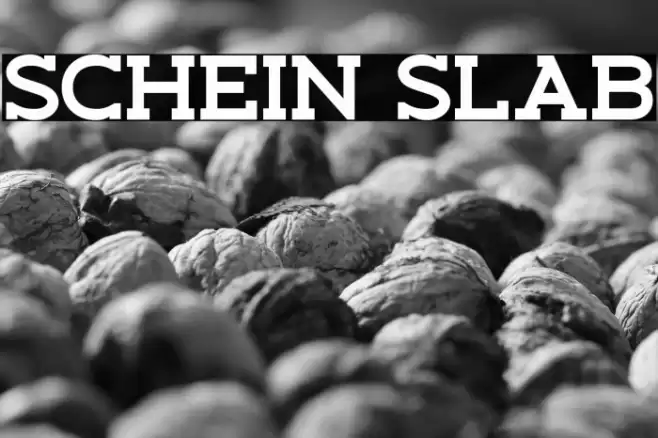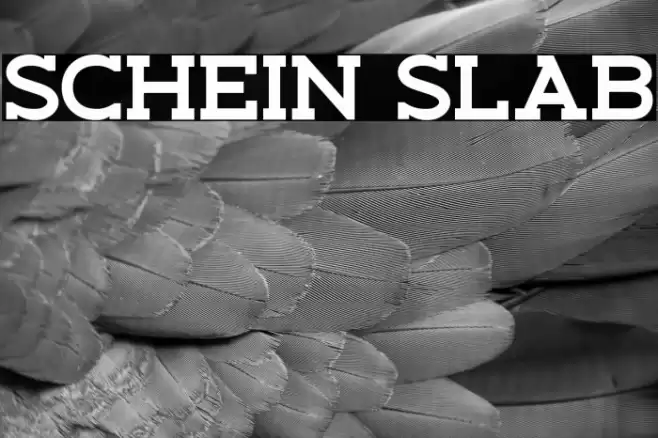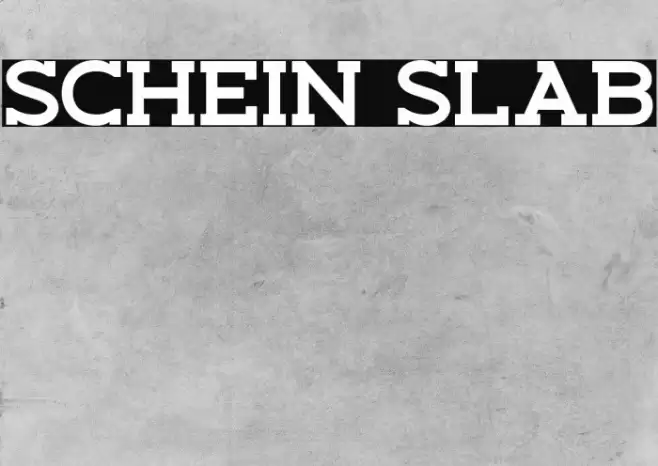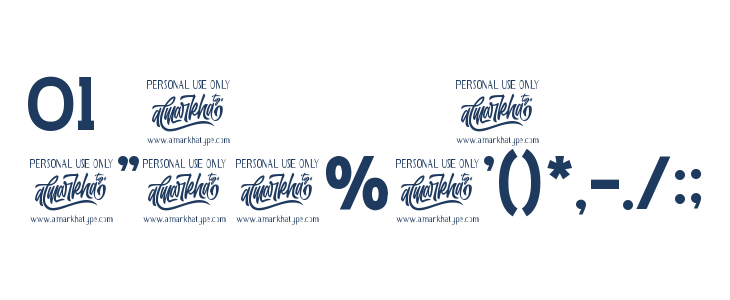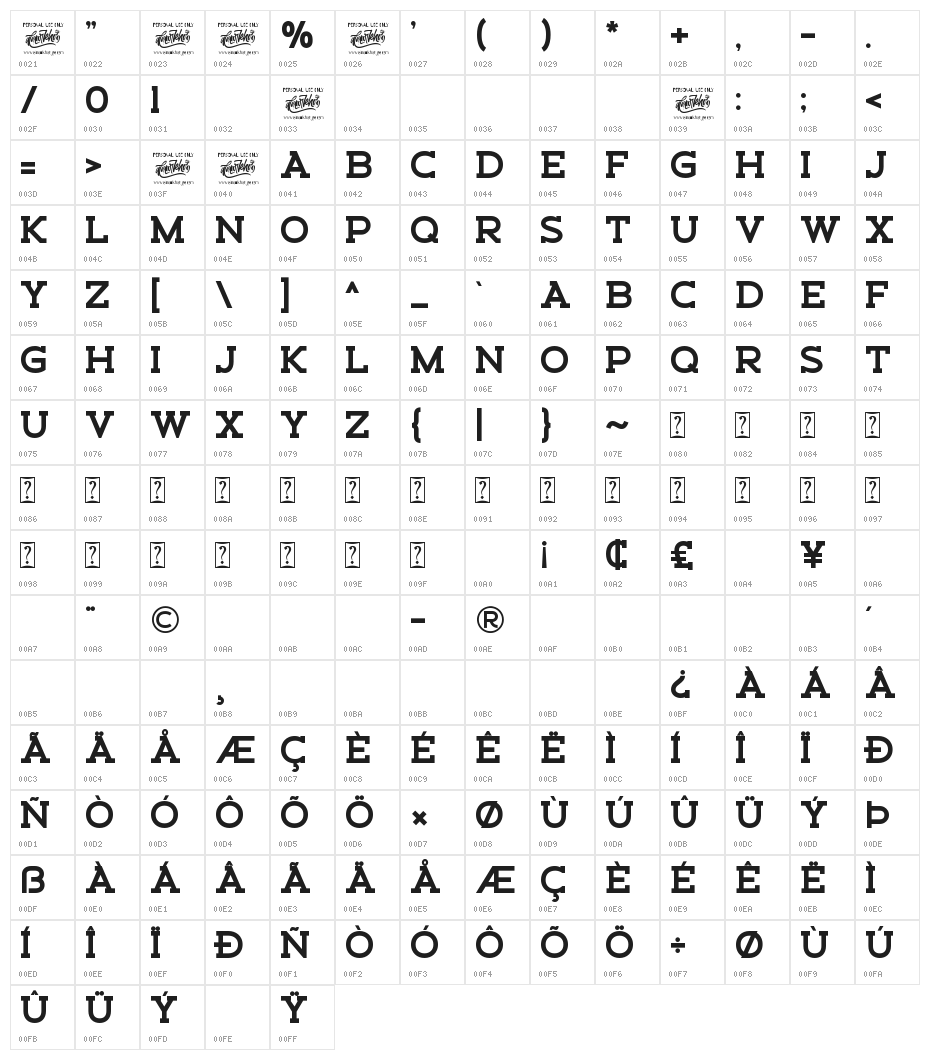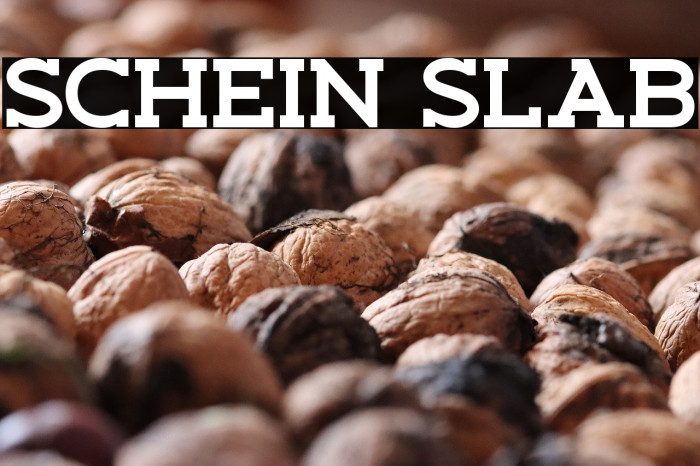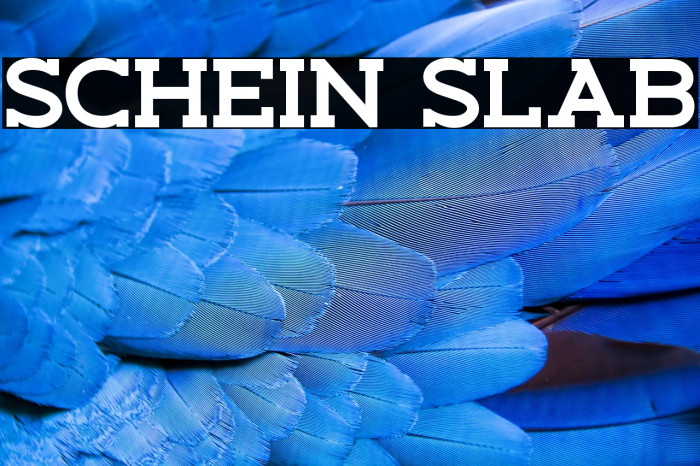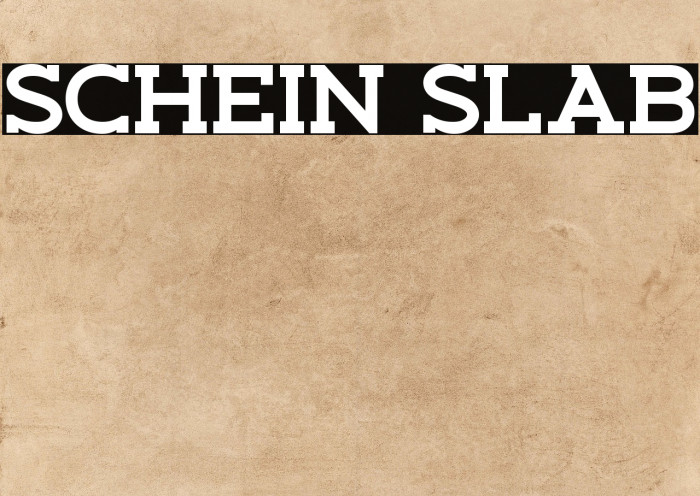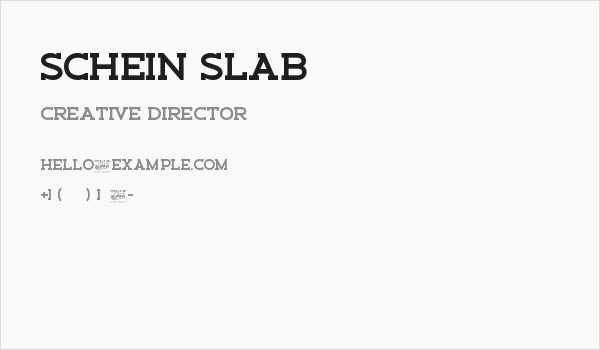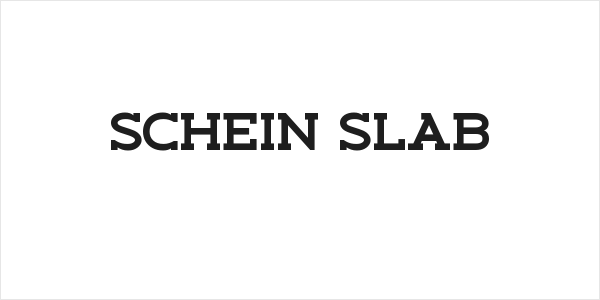
Schein Slab Font
Schein Slab Description
This font exhibits a robust and authoritative presence with its slab serif design. The characters are bold and well-defined, featuring thick, block-like serifs that enhance readability and impact. The uppercase letters are uniform in height, providing a cohesive and structured appearance. The numerals and special characters maintain the same boldness, ensuring consistency across all text elements. The font's design is ideal for making strong visual statements, combining traditional serif elements with a modern twist.
A bold slab serif font with strong, block-like serifs and a modern touch from Regular fonts.
- Proposed Projects: Ideal for headlines, posters, branding materials, and any project requiring a strong, impactful typeface.